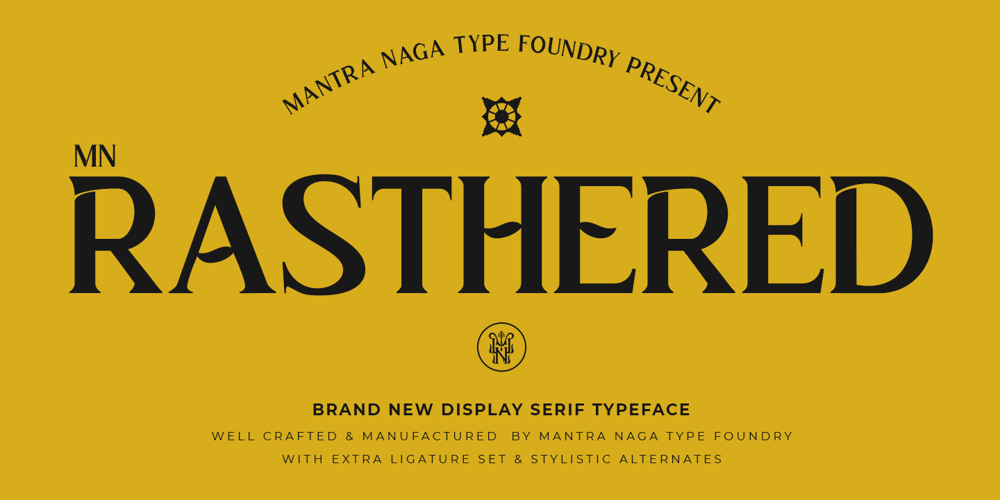
MN Rasthered Font Family was designed by Fredo Eka Pratama and published by Mantra Naga Studio. MN Rasthered contains 1 styles and family package options. MN Rasthered is a display serif font featuring opentype features such as alternates and ligatures, enhancing its aesthetic appeal. Suitable for both modern and retro styles, this font is perfect for branding, headlines, posters, logos, promotional media, books/magazines, and more. With its flexible capabilities, MN Rasthered can add a unique and professional touch to various graphic design projects.